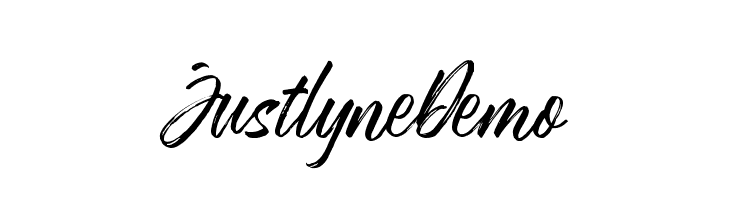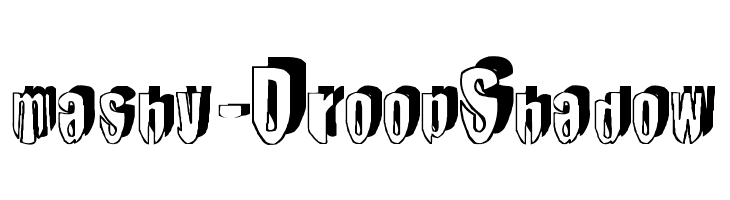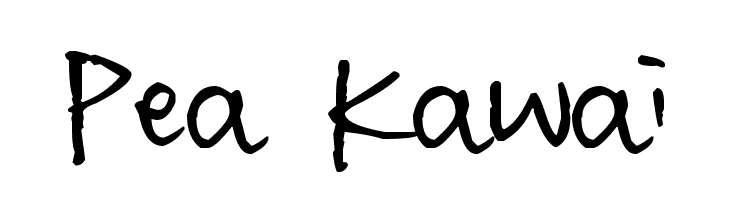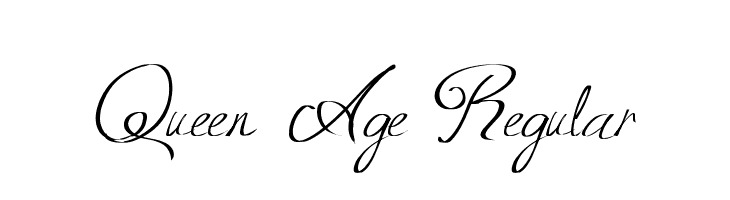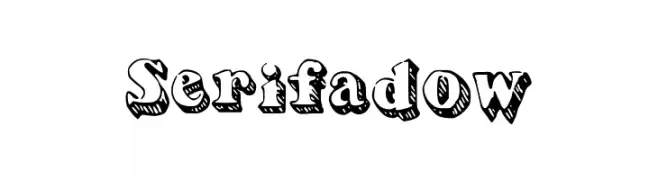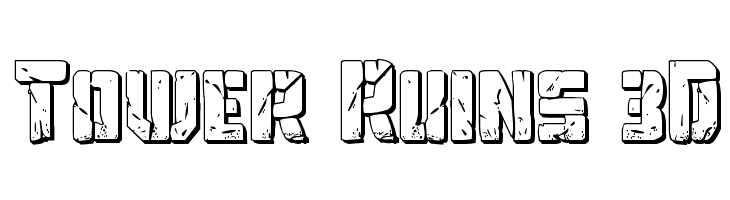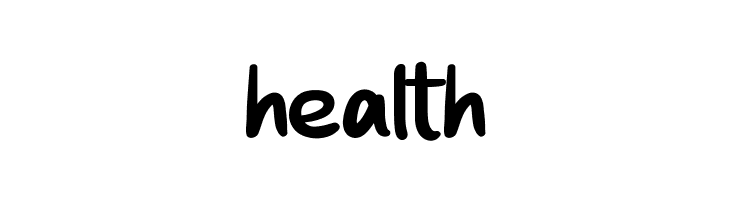
A bold, 3D block font with a distressed, stone-like texture.
An elegant script font with flowing, high-contrast strokes and ornate details.
A bold, rounded font with a modern and approachable style.
A bold blackletter font with intricate decorative swirls.
A bold, playful font with a hand-drawn, whimsical style.
A bold, rugged font with a hand-crafted, edgy appearance.
A bold, distressed font with a grunge aesthetic and irregular, dripping edges.